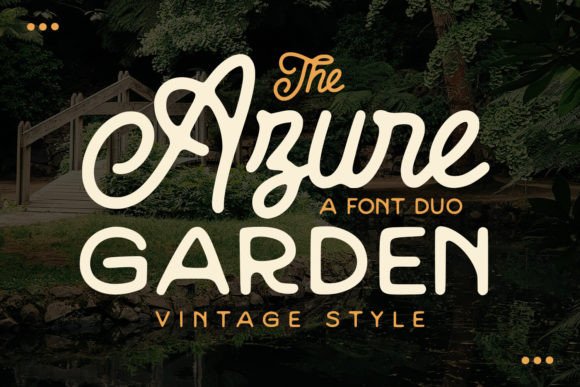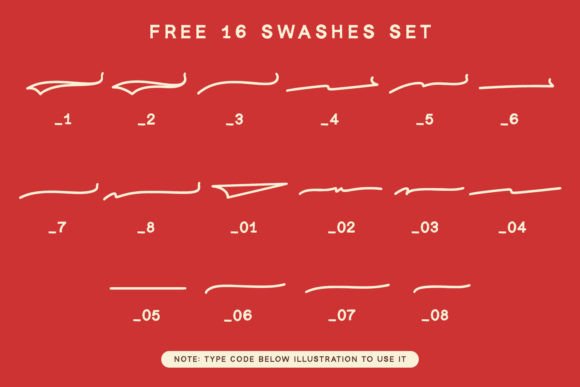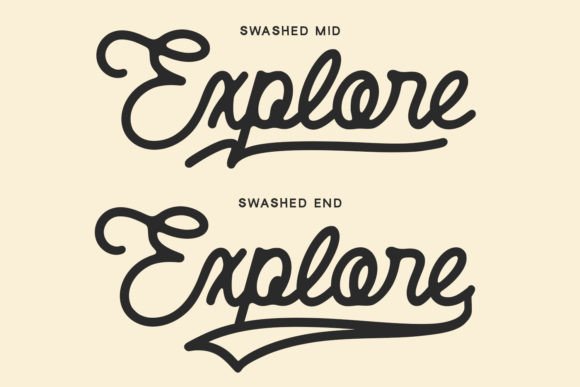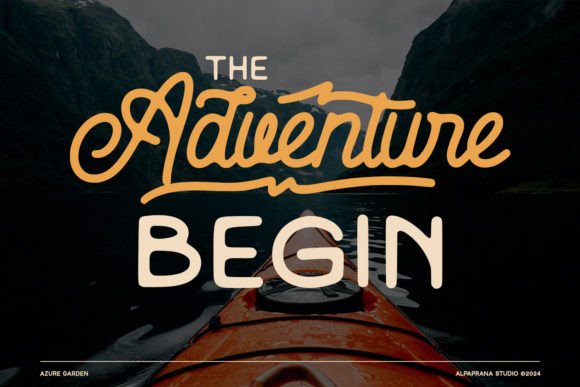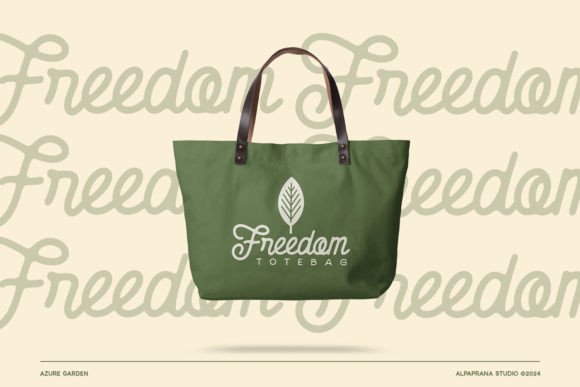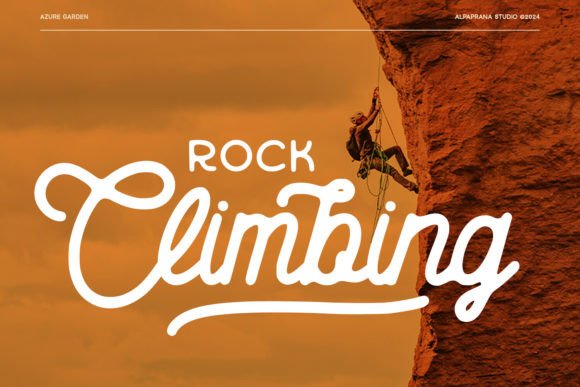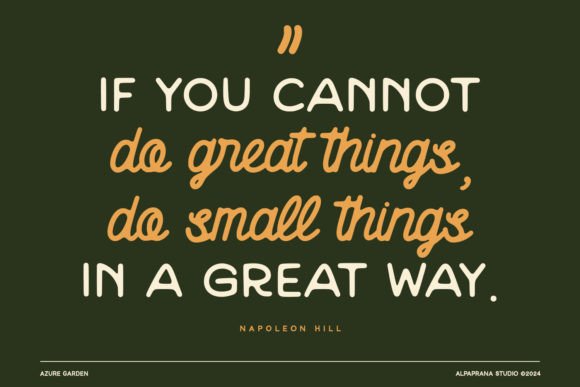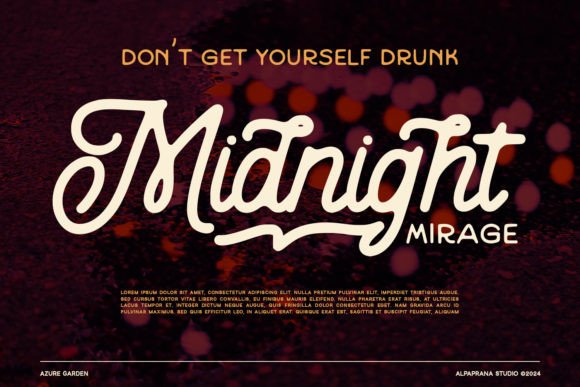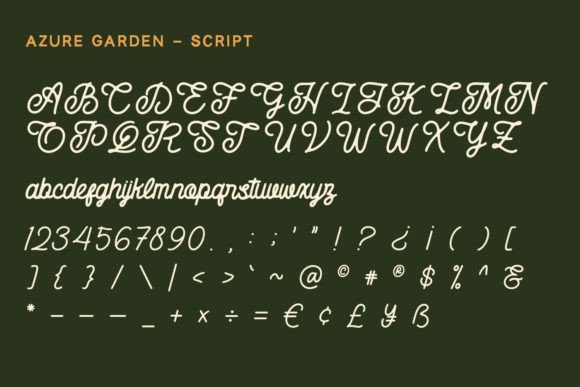
Azure Garden Font
Azure Garden is a vintage script font exuding timeless charm and elegance. Its graceful curves and stylish flourishes evoke the beauty of bygone eras, making it perfect for wedding invitations, branding, and nostalgic designs. With its classic appeal, Azure Garden adds a touch of sophistication to any project.